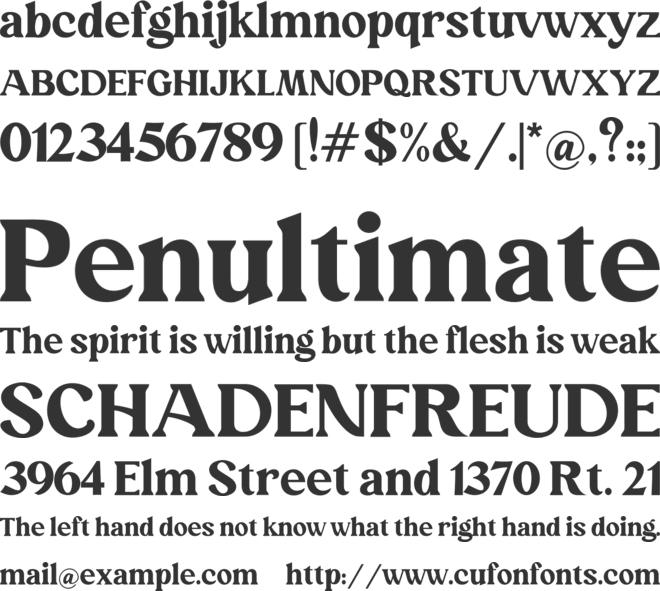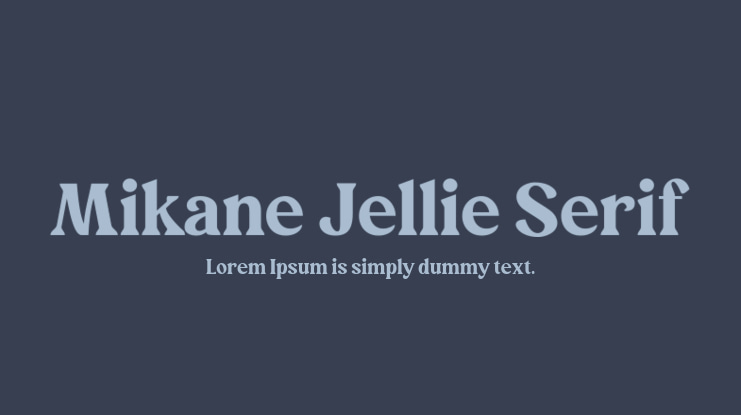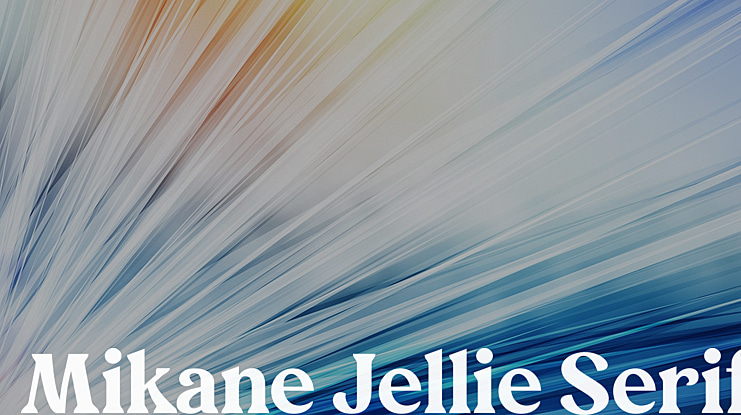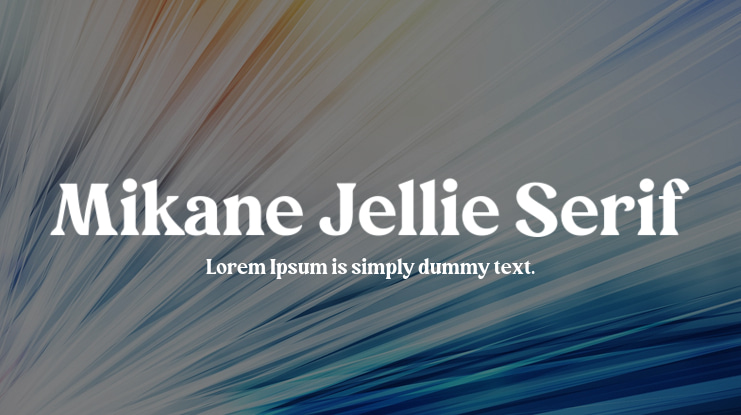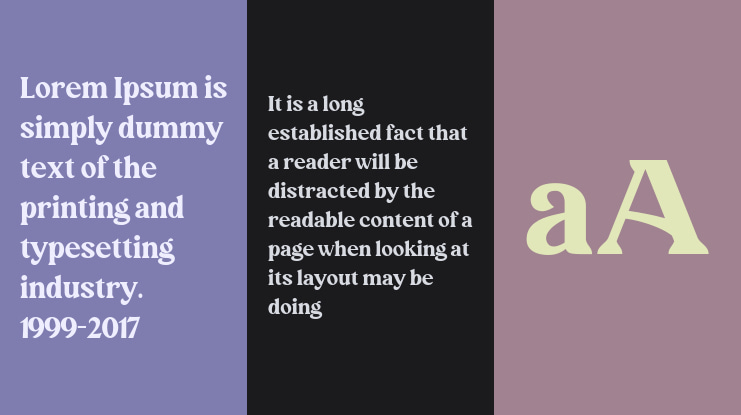
Mikane Jellie Serif Font
Introducing Mikane Jellie is a Handwritten Font Duo.
Mikane Jellie is the perfect combination of elegant and trendy. This duo font (script and serif) will turn your creations into real works of art. Mikane Jellie is PUA encoded which means you can access all of the glyphs and swashes with ease!